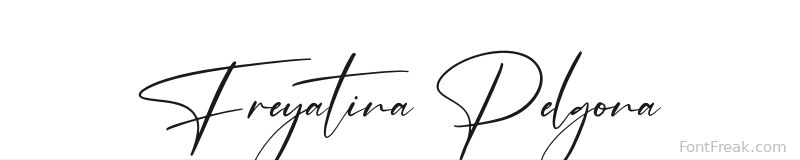
Freyatina Pelgona
Freyatina Pelgona is a captivating script font designed by Perspectype Studio in 2021. This font stands out in the realm of handwritten typefaces, showcasing a fluid, elegant style that is both charming and sophisticated. The strokes of Freyatina Pelgona are gracefully varied, featuring a delicate contrast between thick and thin lines that adds depth and character. The overall spacing is well-balanced, allowing for readability while maintaining a personal touch that is characteristic of handwritten fonts. Decorative elements, such as sweeping ascenders and playful curves, enhance its artistic flair, making it a visually appealing choice for various design projects.
This font is particularly well-suited for wedding invitations, where its romantic style can convey love and elegance. Additionally, it can be effectively used for branding in boutiques or cafes, helping to create a warm and inviting atmosphere. Its unique charm makes it an excellent choice for social media graphics, where content creators can utilize it to add a personal touch to their posts. Freyatina Pelgona is also ideal for greeting cards and other stationery, allowing users to convey heartfelt messages with style.
Targeted towards graphic designers, small business owners, and content creators, Freyatina Pelgona offers versatility and creativity in its application. It allows users to stand out in a crowded market, making their projects memorable and engaging.
What truly sets the Freyatina Pelgona font apart is its ability to blend contemporary elegance with a personal, handwritten feel. This fusion of styles makes it an excellent choice for anyone looking to add a unique touch to their designs. For those interested, the Freyatina Pelgona font free download is available, making it accessible for various creative projects.